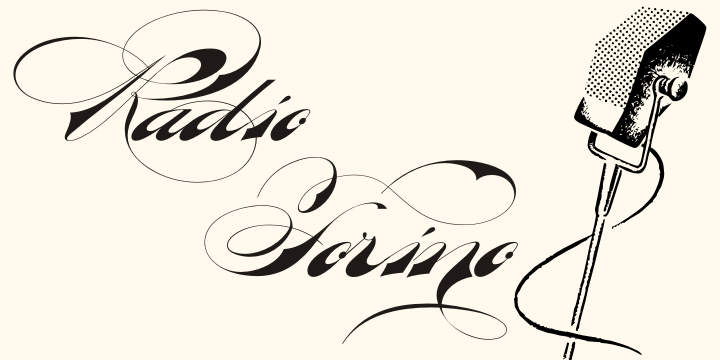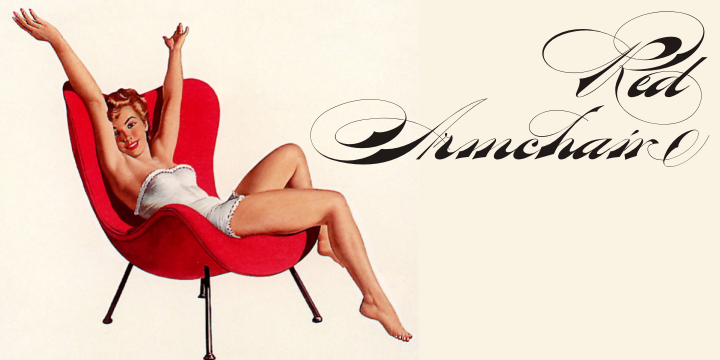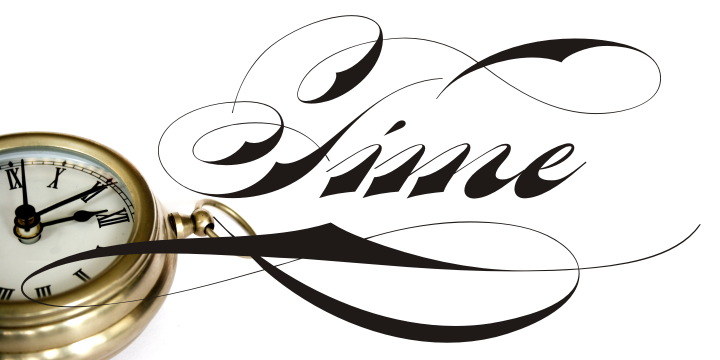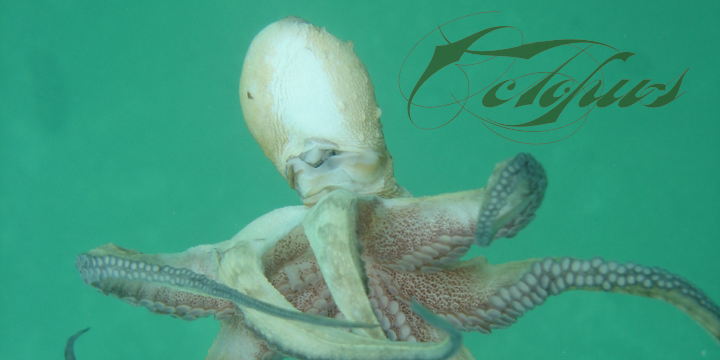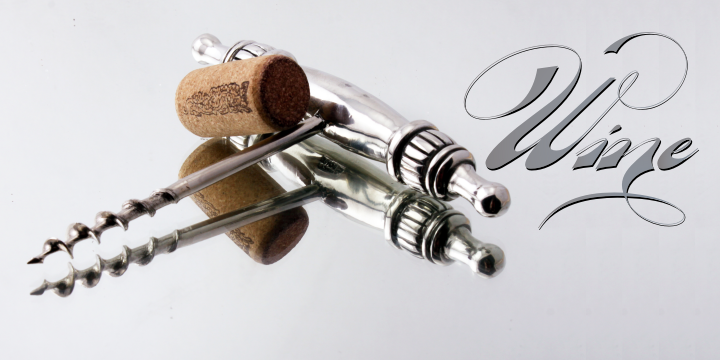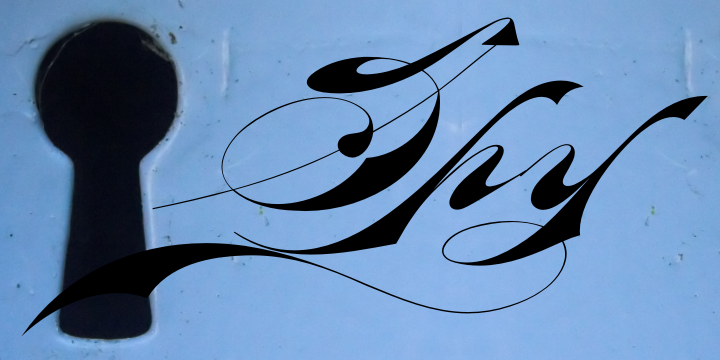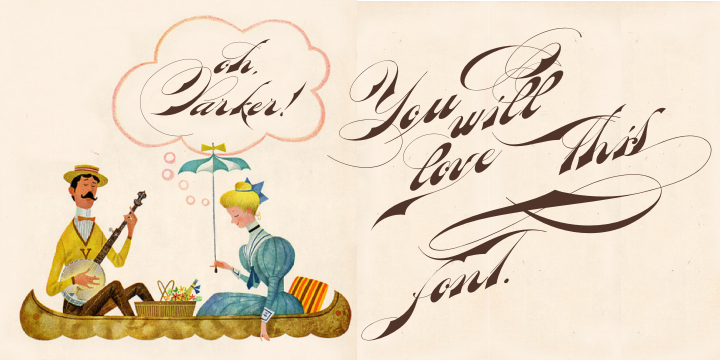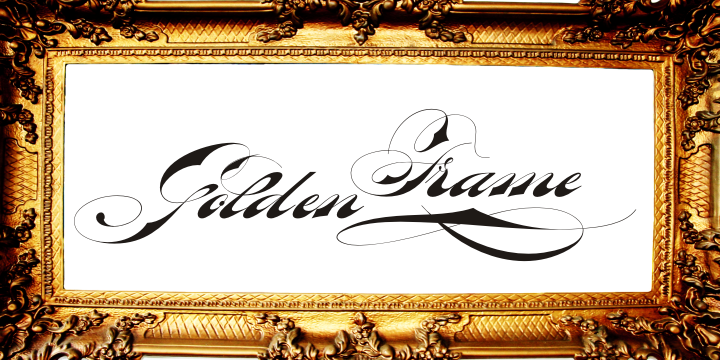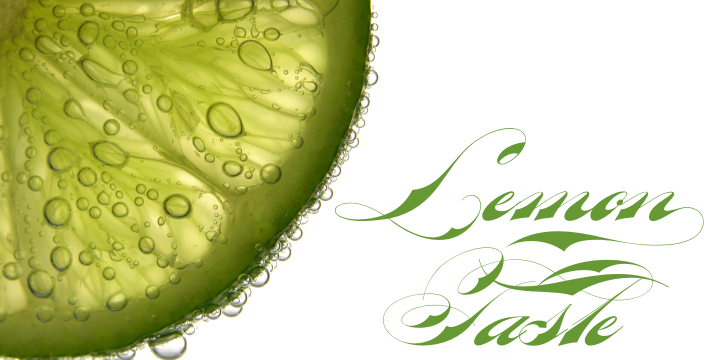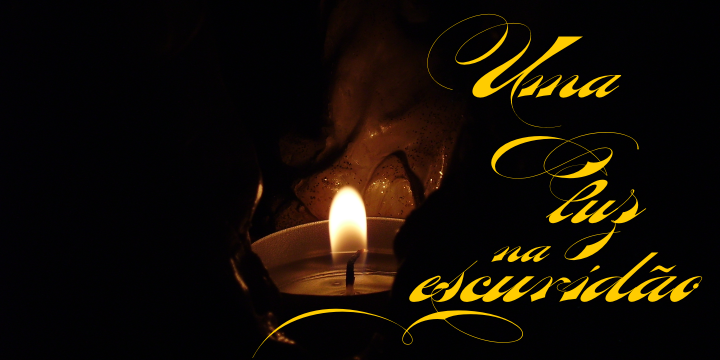
Bradstone-Parker Script is a script font published by Intellecta Design.
Iza and Paulo W (Intellecta Design) are proud to announce Bradstone-Parker script Script. A free interpretation of the golden age writing style from american classical penmanship. Inspired in Zaner and his contemporaries Bradstone-Parker has evocative (sometimes exagerated) ligature forms and voluptuous forms.
This enhanced OpenType version is a complete solution for producing documents and artworks whith a evocative and voluptuous style of calligraphic script:
- many stylistic alternates for each letter (upper- and lowercase), accessed with the glyph palette;
- ornaments and fleurons in the typical style from the XIX to the first decades of the XX century writing style, all accessed with the glyph palette using the Ornaments feature;
- an extensive set of ligatures (100s of contextual alternates plus discretionary ligatures) providing letterform variations that make your designs really special, resembling real handwriting on the page;
- a tour-de-force kerning work: over 4600 kerning paris soft adjusted handly.
Take a special look at the Bradstone-Parker Words (ready words). Bradstone-Parker Script has original letters designed by Iza W and overall creative direction plus core programming by Paulo W.